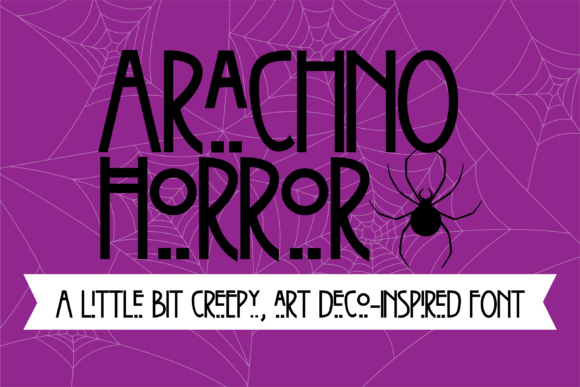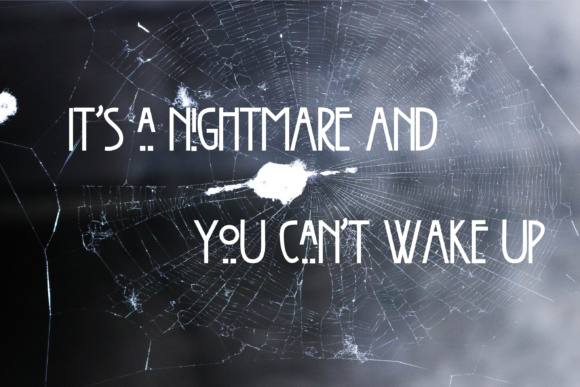
Arachno Horror Font
About the Arachno Horror Font
Discover the charm of Arachno Horror Font. This font is a perfect blend of modern aesthetics and classic appeal. This art deco inspired font has recently become a favorite for all scary things. Several letters feature a double dot underneath them with a higher baseline. As a bonus, Arachno Horror has a creepy spider bullet point.
Its bold, art deco styling and unique features make Arachno Horror ideal for headlines, posters, and branding projects requiring a dramatic, vintage-horror aesthetic. It’s particularly effective for Halloween-themed designs, horror movie titles, or gothic-inspired brands. However, its low x-height and decorative elements make it unsuitable for body text or UI elements where readability is paramount.
For effective pairings, consider a clean, geometric sans-serif like Bebas Neue for contrast, or a classic serif such as Garamond for a more refined, old-world feel. A playful script font, used sparingly, could add an extra layer of intrigue, but ensure it complements, not competes with, Arachno Horror’s strong personality.
The font’s overall personality is dramatic and slightly macabre, conveying a sense of vintage horror and mystery. Avoid pairing it with fonts that are too whimsical or overly modern, as this would dilute its unique character.
Arachno Horror Font Usage Examples
Arachno Horror Font Example